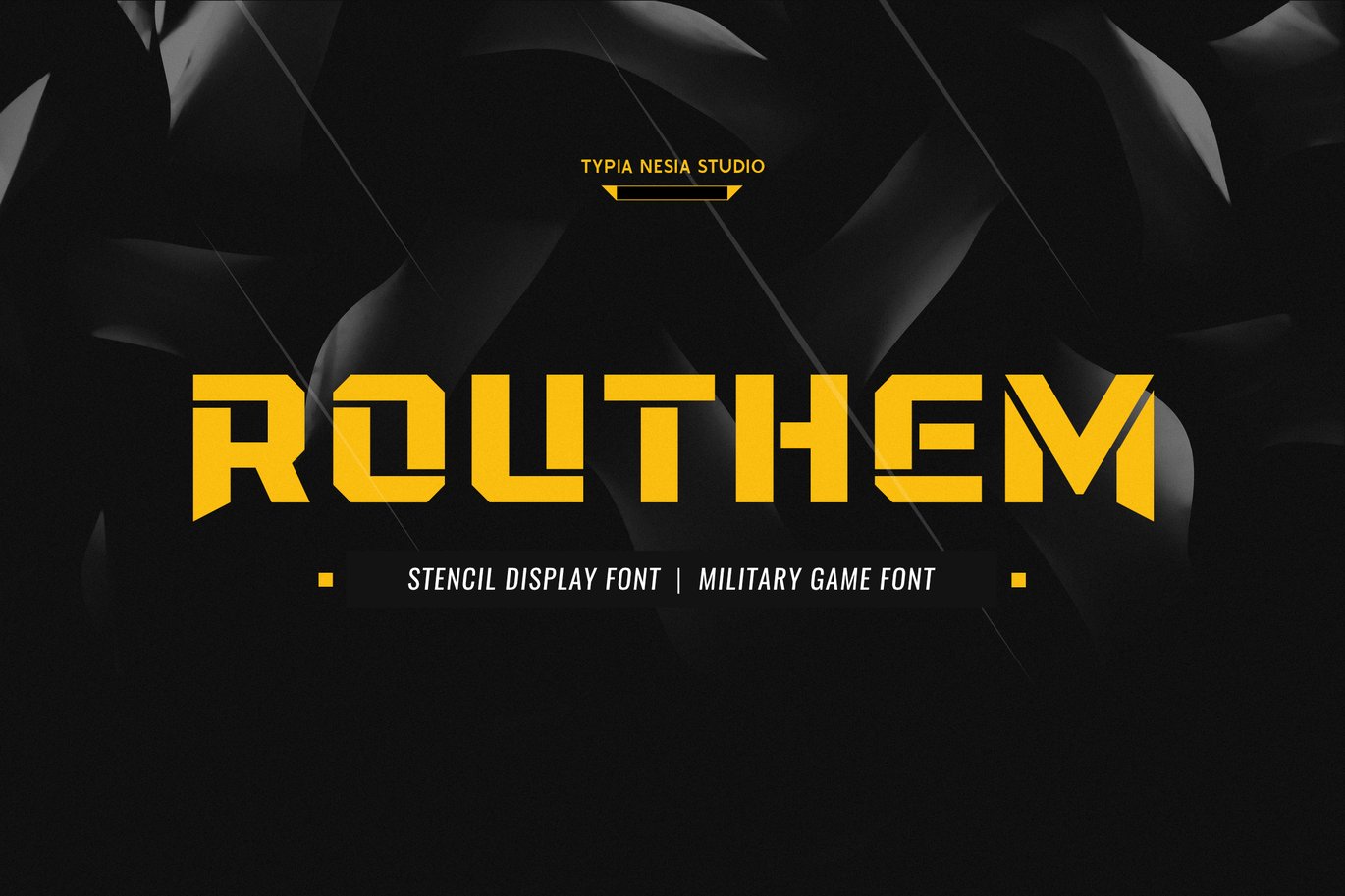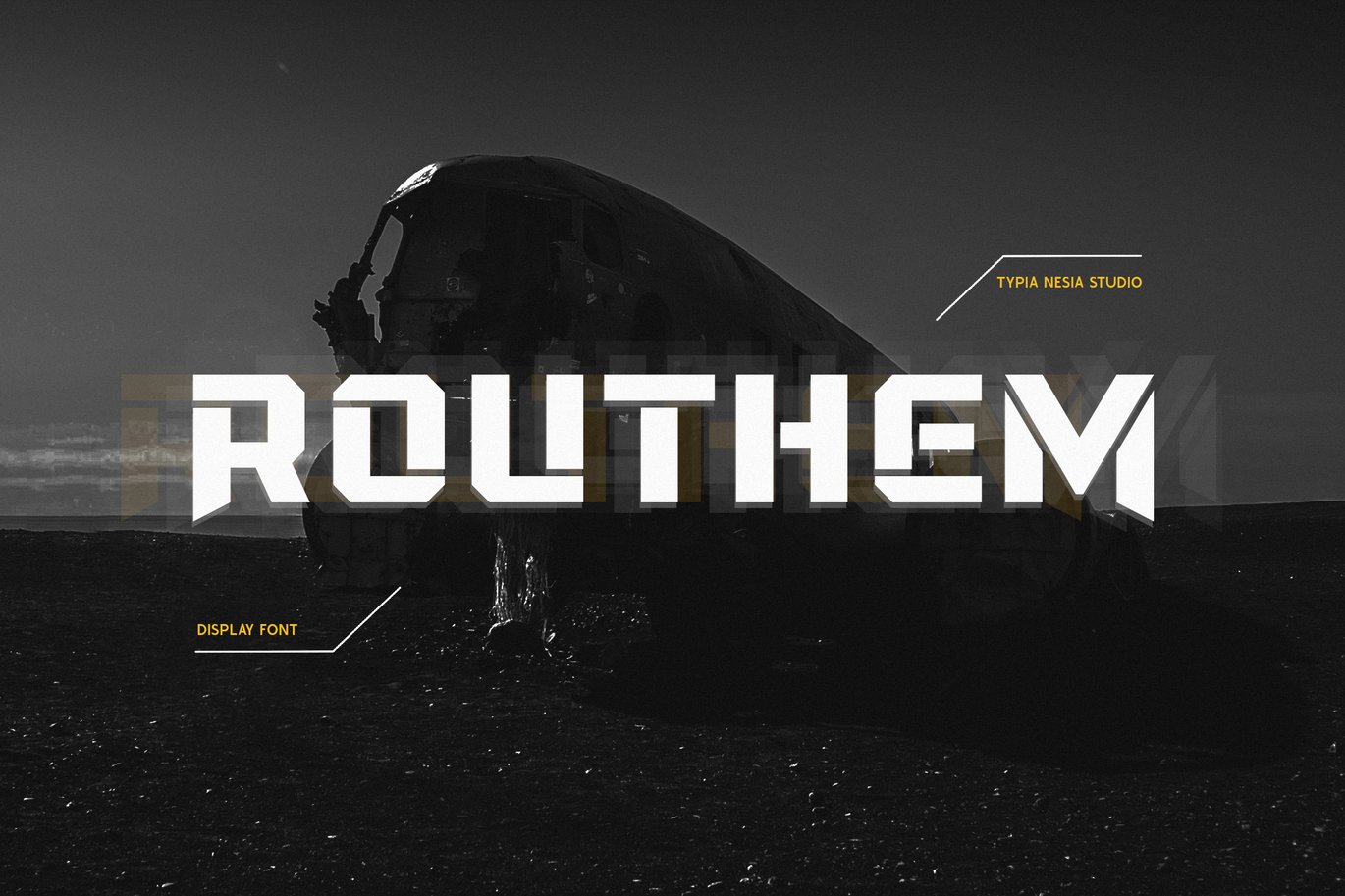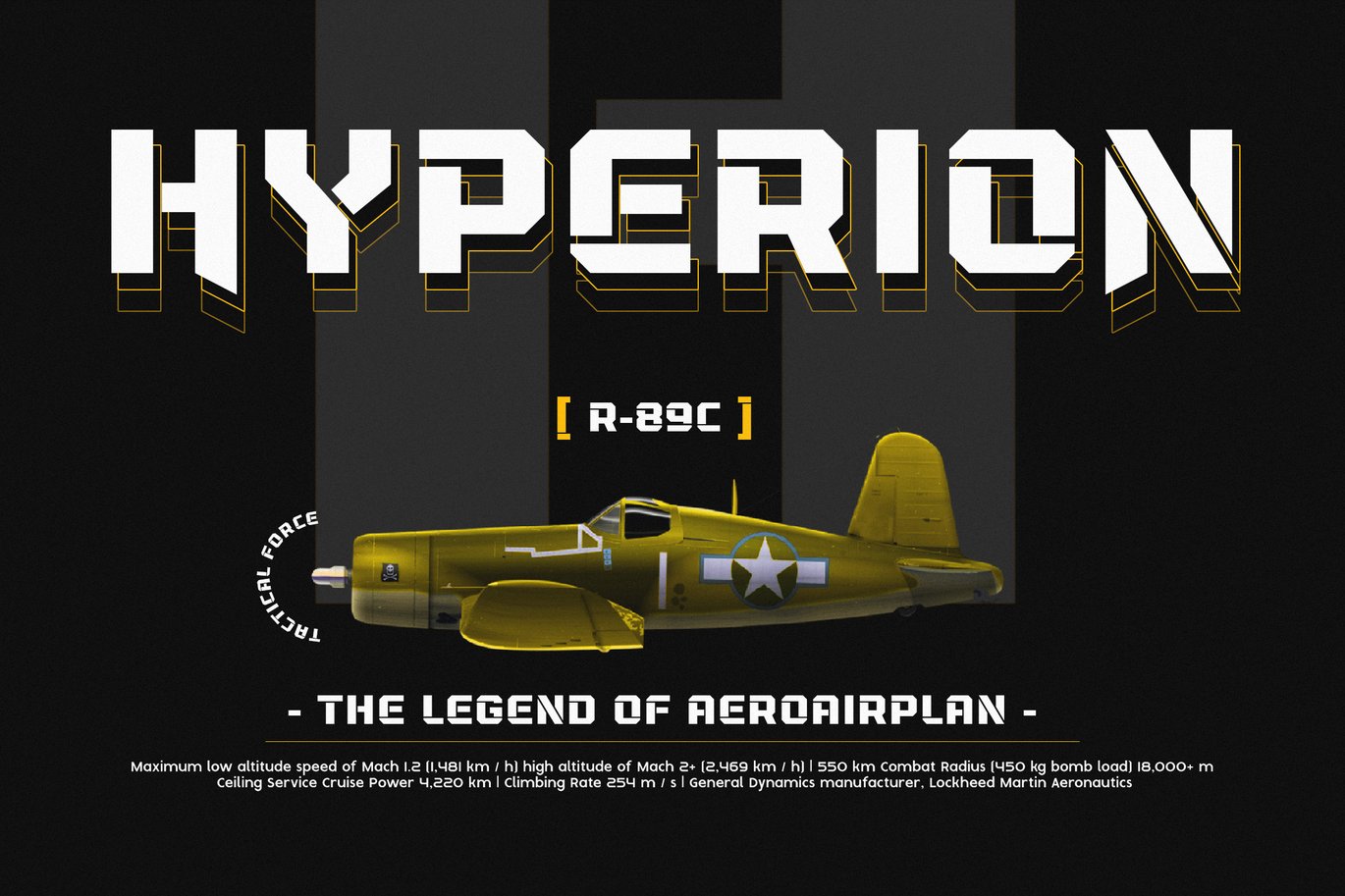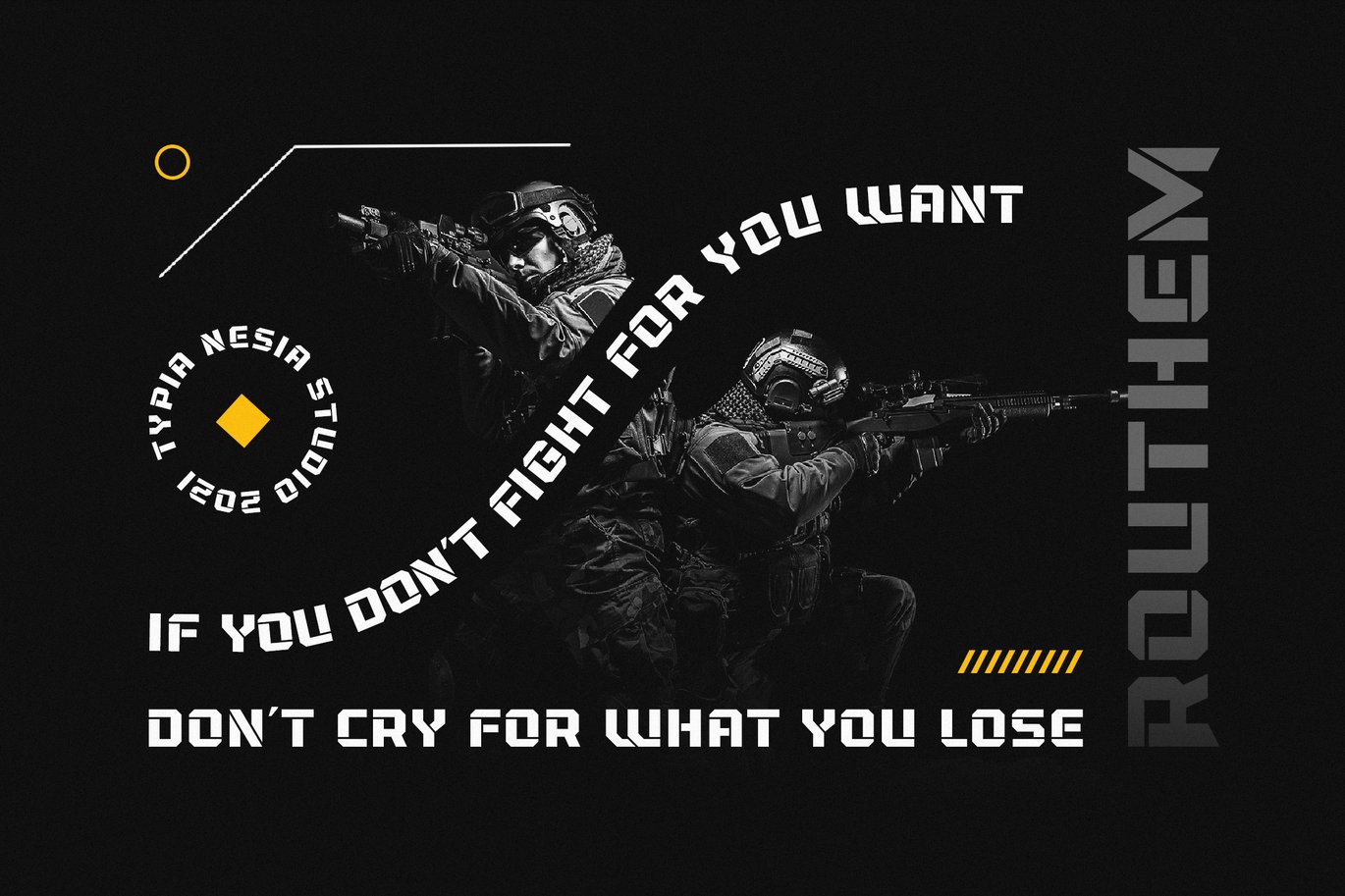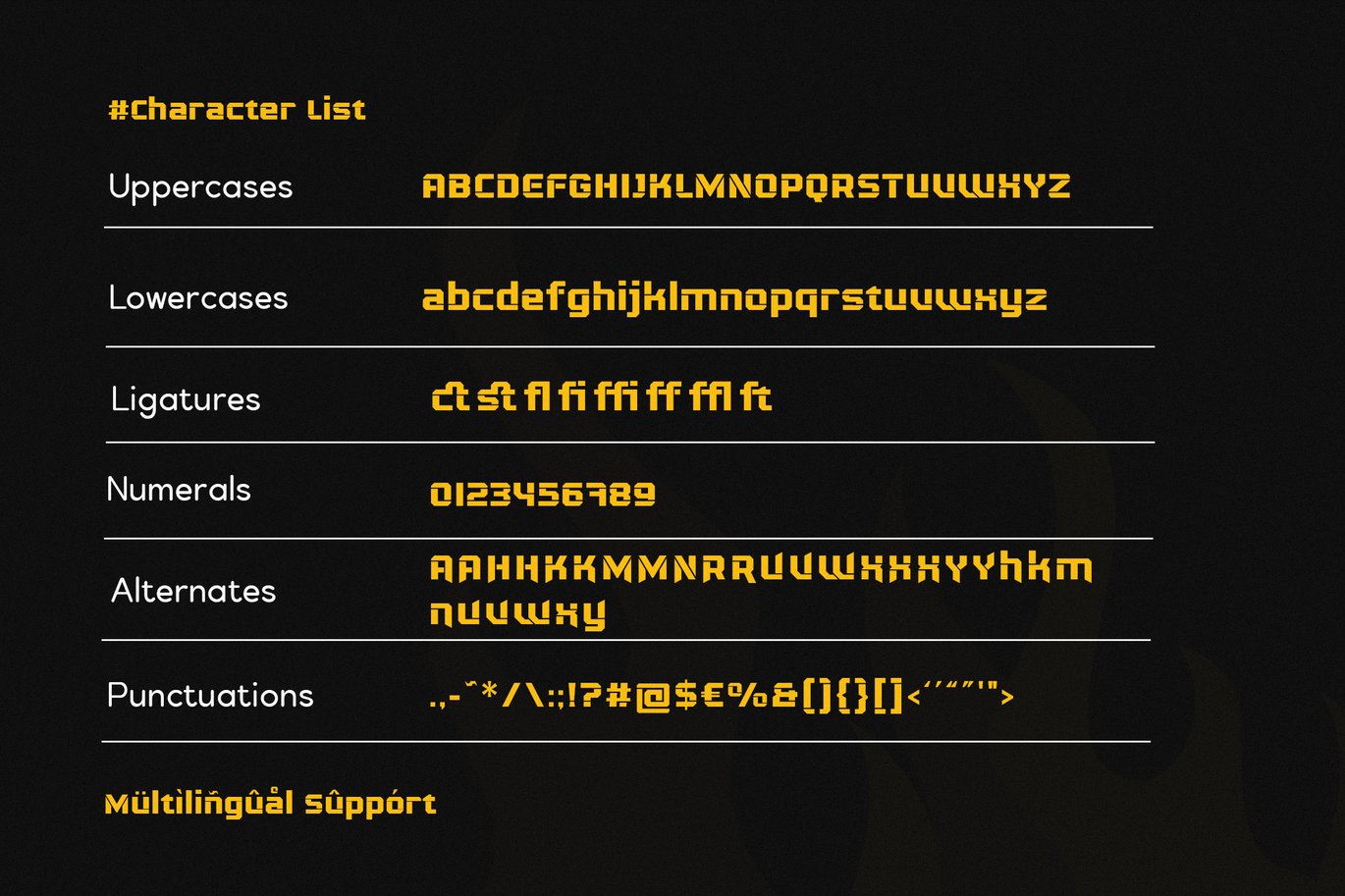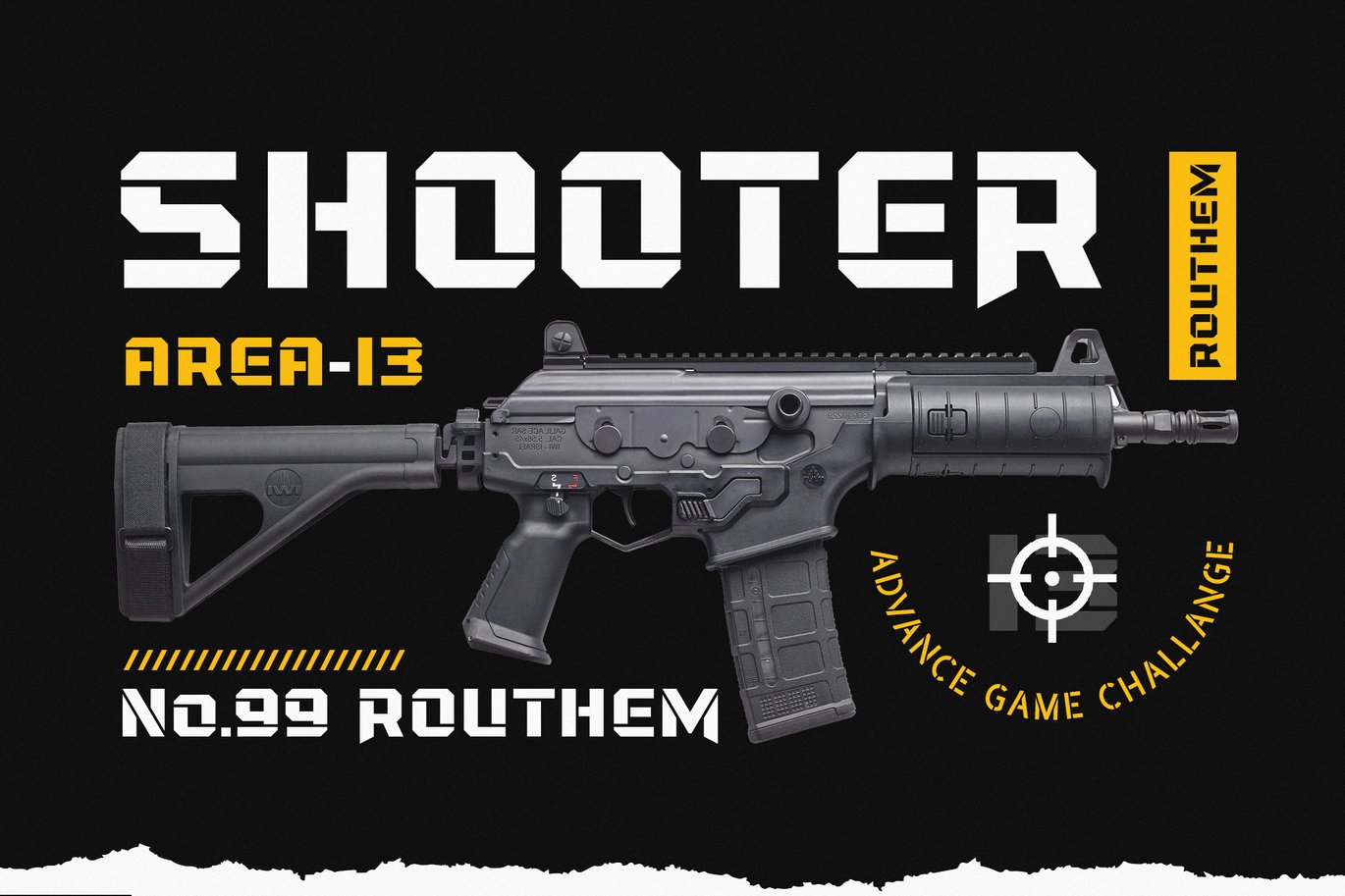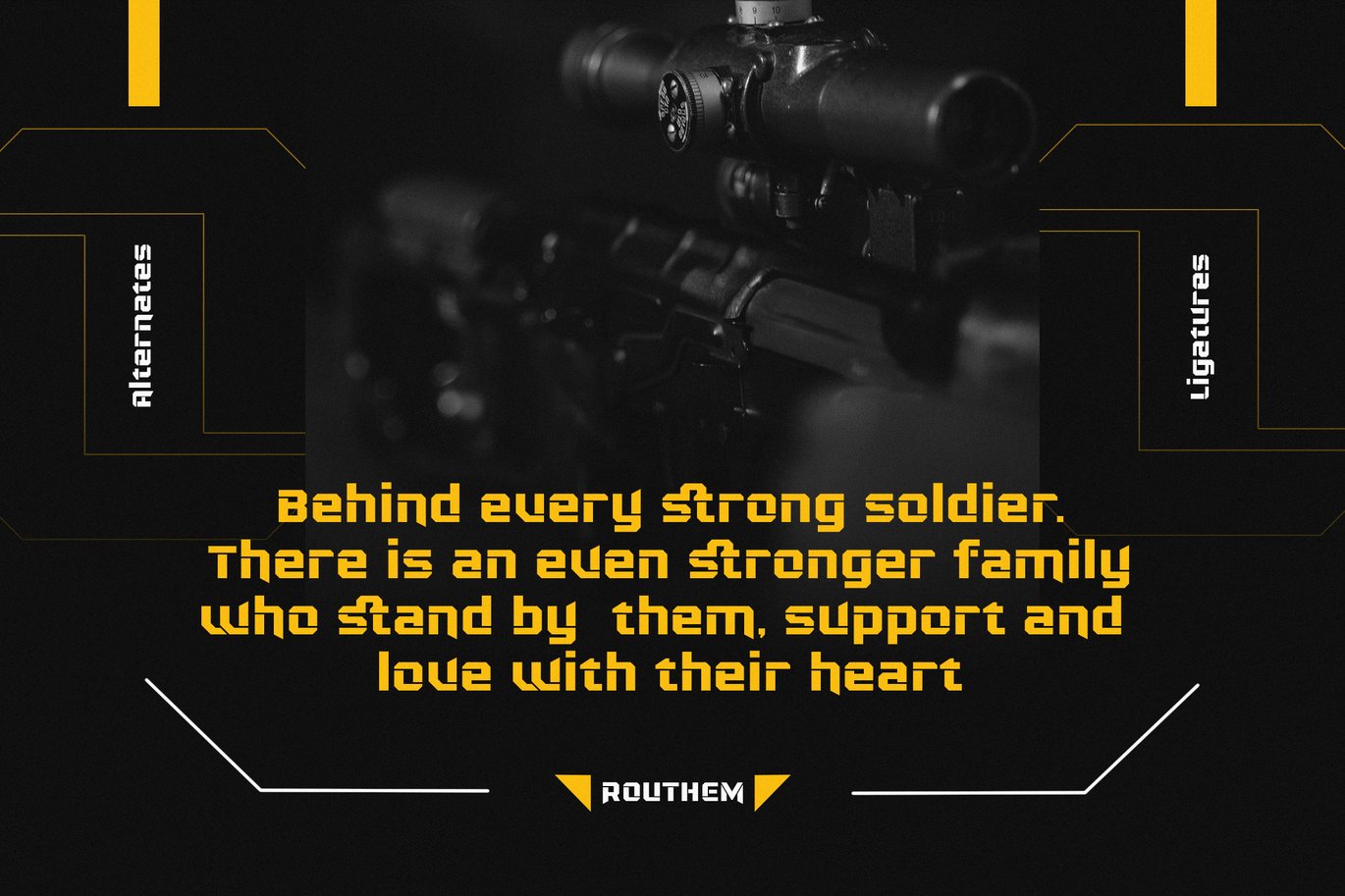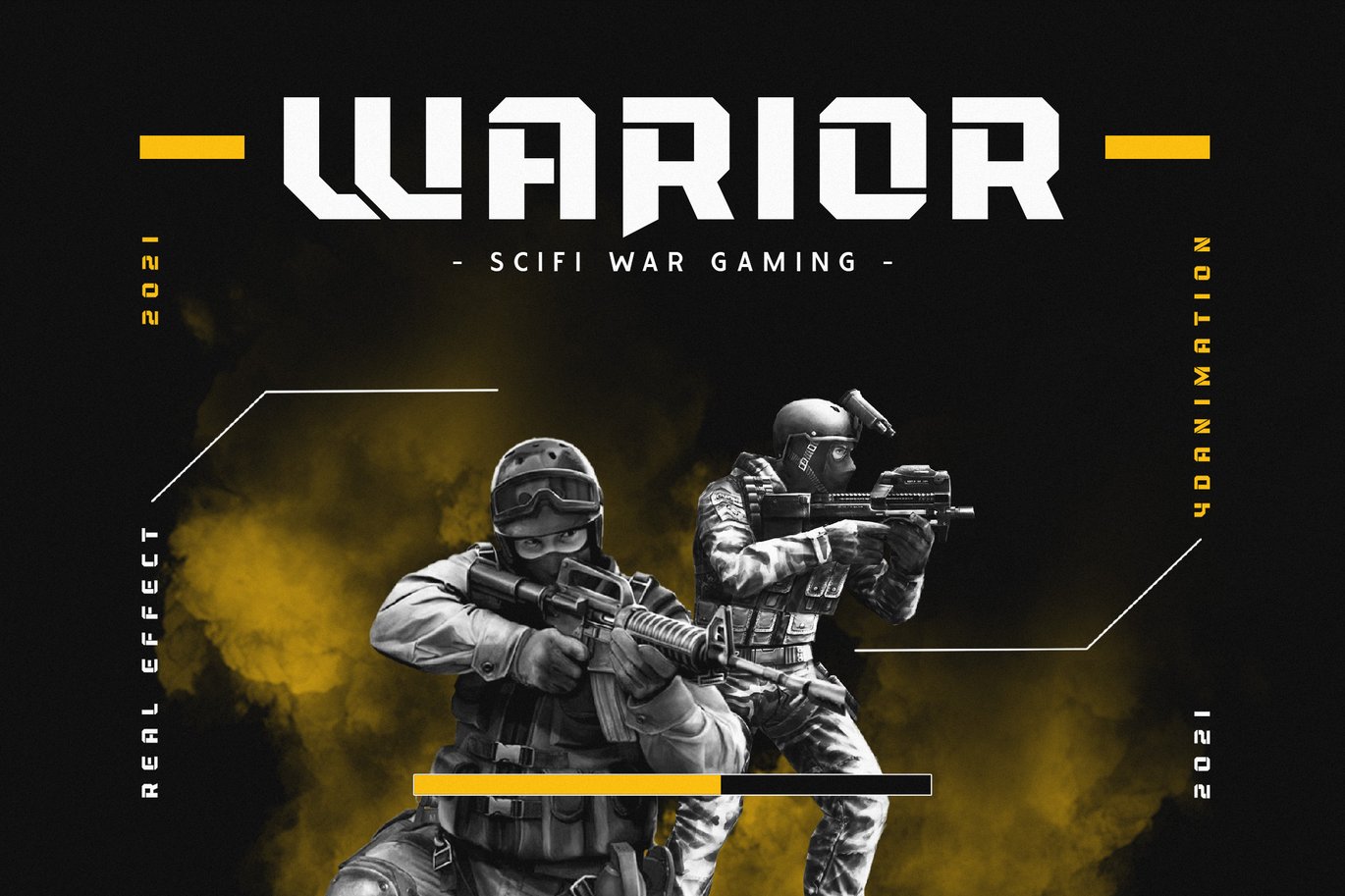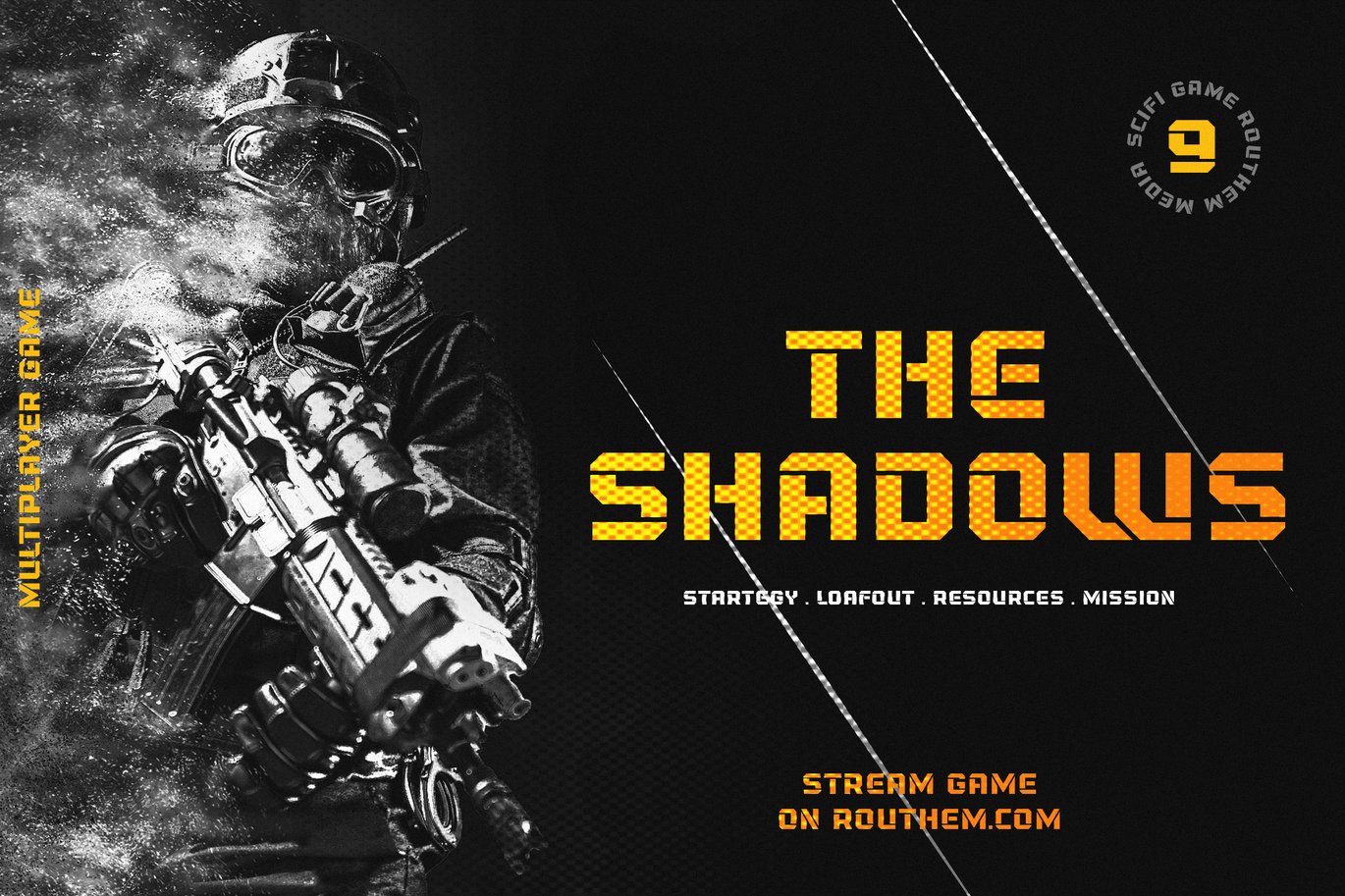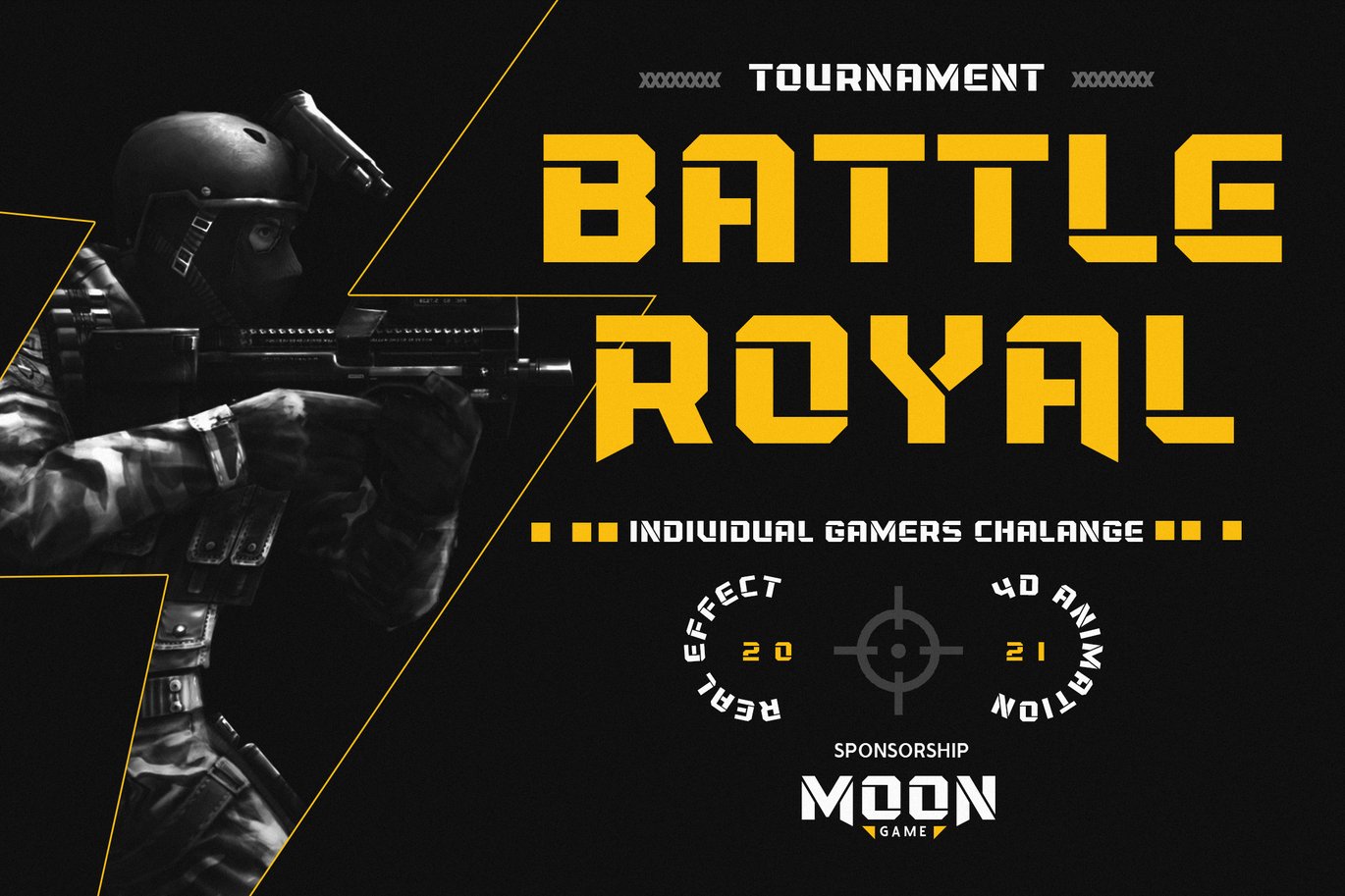
Rouhtem Stencil Display Sans – Military Game Font
Rouhtem Stencil Display Sans Serif – Military Esport Game Font
Rouhtem Stencil Display Sans Serif Font is perfect for your up coming projects. Such as logo branding, editorial design, stationery design, sport design, 80s retro design, esport game industry, sport racing, super car brand, music poster, blog design, modern advertising design, card invitation, art quote, home decor, book/cover title, special events and any more.